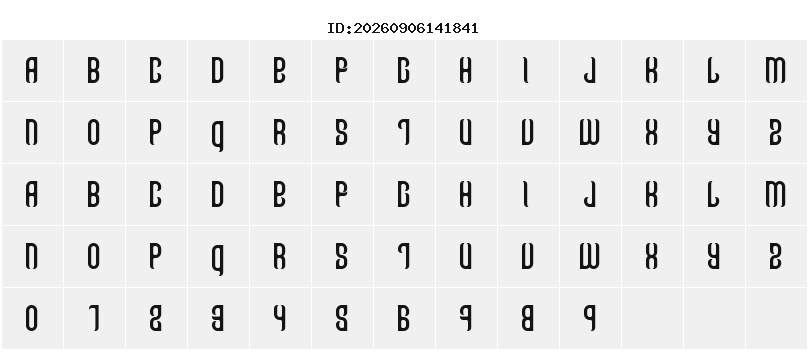
Talismanica Preview
• Font Name: Talismanica
• Full Font Name: Talismanica
About Talismanica.ttf
Talismanica.ttf is a modern, elegant sans-serif font designed for ultimate readability and visual harmony. Perfect for branding, headlines, web design, and print materials.